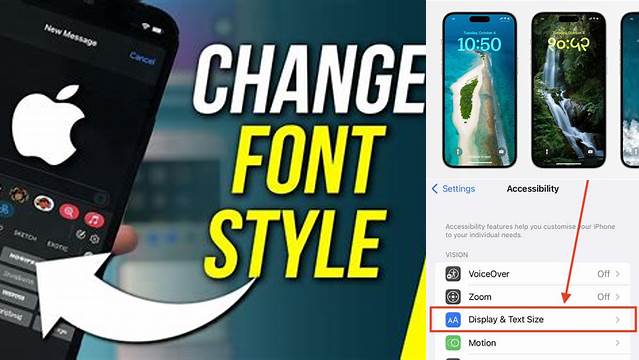
Best Fonts For IPhone 16: Enhance Your Display
Choosing the right font can significantly impact the user experience on your iPhone 16. A well-selected font enhances readability, aesthetics, and overall device appeal. Let's dive into the world of fonts and explore how you can optimize your iPhone 16's display.
1. Understanding Font Compatibility on iPhone 16
Making sure your favorite fonts play nice with the iPhone 16 is super important, guys. Apple's iOS has its own way of handling fonts, so you can't just slap any old font on there and expect it to work perfectly. Usually, iOS relies on fonts that are designed to work smoothly with its system, ensuring everything looks sharp and clear. But hey, there's some wiggle room! You can use apps from the App Store that let you install custom fonts. Just remember to check if these fonts are actually compatible to avoid any weird display issues or glitches. Nobody wants their phone looking like it's from another dimension, right? Keep an eye on updates too, because Apple often tweaks things under the hood that can affect how fonts behave. So, stay informed, and your iPhone 16 will be looking stylish in no time!
2. System Fonts vs. Custom Fonts
Alright, let's break down the difference between system fonts and custom fonts on your iPhone 16. System fonts are those that come pre-installed on your device. Apple designs them to be super readable and consistent throughout the operating system. Think of San Francisco – it's clean, modern, and you see it everywhere on iOS. Custom fonts, on the other hand, are fonts you download and install yourself using third-party apps. These let you personalize your phone's look, but they might not always be as optimized as system fonts. You might run into issues like weird spacing or reduced readability if a custom font isn't well-made. Plus, using too many custom fonts can sometimes slow down your device or drain the battery faster. So, while it's tempting to go wild with personalization, it's a good idea to strike a balance. Stick to system fonts for important stuff like emails and notes, and use custom fonts sparingly for a bit of flair in other areas.
3. Top System Fonts for iPhone 16
When it comes to system fonts on your iPhone 16, you've got some seriously awesome choices that are designed to make your screen pop. First up, there's San Francisco, which is basically the bread and butter of iOS. It's super versatile, readable, and looks great in all sizes. If you're into something a bit more classic, Helvetica Neue is another fantastic option. It's clean, elegant, and gives your text a sophisticated vibe. For those who prefer a modern twist, Avenir Next is a winner. Its geometric design is both stylish and easy on the eyes. And let's not forget about Gill Sans, which has a cool, slightly quirky look that's perfect for adding a bit of personality. The best part about these system fonts is that they're optimized to work perfectly with your iPhone 16, so you won't have to worry about any weird display issues or glitches. Plus, they're battery-friendly, so you can enjoy your phone without constantly reaching for a charger. Choosing the right system font can really elevate your iPhone experience, making everything from reading emails to browsing the web a total breeze.
4. Best Custom Fonts for iPhone 16
If you're looking to jazz up your iPhone 16 with some custom fonts, you've got tons of options to play with! One popular choice is Montserrat, a modern and geometric font that's super clean and stylish. Another great pick is Raleway, which has a sleek, sophisticated vibe that's perfect for headlines and titles. For something a bit more playful, try Pacifico – it's a fun, hand-drawn script that adds a touch of personality to your phone. And if you're into vintage looks, Bebas Neue is a fantastic option. It's a tall, condensed font that's perfect for making a bold statement. Just remember, guys, to download these fonts from trusted sources to avoid any security risks. Once you've got them, you can use apps like AnyFont or Font Diner to install them on your iPhone. Keep in mind that custom fonts might not always be as optimized as system fonts, so test them out in different apps to make sure everything looks good. With a little experimentation, you can find the perfect custom font to make your iPhone 16 truly unique.
6. Font Size and Readability
Making sure the font size on your iPhone 16 is just right is super important for readability. If the font is too small, you'll be squinting and straining your eyes, which nobody wants! On the other hand, if it's too big, you won't be able to see much text on the screen at once, which can be a pain when you're reading long articles or emails. Luckily, iOS makes it easy to adjust the font size to your liking. Just head to Settings > Display & Brightness > Text Size, and you'll find a slider that lets you make the text bigger or smaller. You can also enable Bold Text for extra emphasis. Another cool feature is Larger Accessibility Sizes, which lets you crank up the font size even more for maximum readability. When choosing a font size, think about the type of content you usually read on your iPhone. If you're mostly reading news articles, a slightly smaller font size might be okay. But if you're reading e-books or long documents, a larger font size will be much easier on your eyes. Experiment with different sizes until you find the sweet spot that works best for you.
7. Adjusting Font Weight on iPhone 16
Adjusting the font weight on your iPhone 16 can make a big difference in how readable your text is. Font weight refers to how thick or thin the letters appear. A heavier font weight makes the text bolder and more prominent, while a lighter font weight gives it a more delicate look. To adjust the font weight on your iPhone, you can enable the Bold Text option in Settings > Display & Brightness > Text Size. This will make all the text on your device appear bolder, which can be especially helpful if you have trouble reading smaller fonts. Keep in mind that enabling Bold Text might not work with all custom fonts, so you might need to experiment to see what looks best. Another way to adjust font weight is by using apps that allow you to customize the appearance of text within the app itself. For example, some e-reader apps let you choose from different font weights to optimize your reading experience. Playing around with font weight can really help you fine-tune the look of your iPhone and make it easier to read in different lighting conditions and situations.
8. Font Style and Its Impact
The font style you choose can have a huge impact on the overall look and feel of your iPhone 16. Different font styles evoke different emotions and create different impressions. For example, a serif font like Times New Roman might give your text a classic, traditional vibe, while a sans-serif font like Helvetica might make it look more modern and clean. Script fonts, like Brush Script, can add a touch of elegance and personality, while monospace fonts, like Courier New, can give it a technical, retro look. When choosing a font style, think about the type of content you're displaying and the message you want to convey. If you're writing a formal email, a classic serif font might be a good choice. But if you're designing a website or creating a presentation, a modern sans-serif font might be more appropriate. You can experiment with different font styles to see what looks best and what resonates with you. Just remember to choose fonts that are easy to read and that complement the overall design of your iPhone.
9. Font Pairing Tips for iPhone 16
Font pairing is the art of combining two or more fonts that complement each other to create a visually appealing and harmonious design. When done right, font pairing can elevate the look of your iPhone 16 and make your text more engaging. Here are a few tips for pairing fonts like a pro: Start by choosing a dominant font for headlines and titles. This should be a font that's bold, eye-catching, and reflects the overall tone of your content. Next, choose a secondary font for body text and other smaller elements. This should be a font that's easy to read and complements the dominant font without overshadowing it. A good rule of thumb is to pair a serif font with a sans-serif font. For example, you could pair a serif font like Times New Roman for headlines with a sans-serif font like Arial for body text. Another approach is to pair fonts that have contrasting personalities. For example, you could pair a bold, geometric font with a delicate, handwritten font. Just remember to keep it simple and avoid using too many different fonts. A good font pairing should enhance the readability and visual appeal of your iPhone, not distract from it.
10. Accessibility and Font Choices
When choosing fonts for your iPhone 16, it's super important to think about accessibility. Not everyone sees the same way, and some people might have trouble reading certain fonts. Picking fonts that are easy to read for everyone is a great way to make your content more inclusive. One thing to keep in mind is font size. Make sure the font isn't too small, so people don't have to strain their eyes. iOS has a feature called Larger Accessibility Sizes that lets you make the font even bigger, which can be a lifesaver for some folks. Also, think about font contrast. High contrast between the text and the background makes it much easier to read. Avoid using light-colored fonts on light backgrounds, or dark-colored fonts on dark backgrounds. The Bold Text option in iOS can also help improve readability for people with visual impairments. And finally, choose fonts that are clean and simple. Avoid fonts that are too fancy or decorative, as they can be hard to decipher. By keeping accessibility in mind, you can make your iPhone 16 a pleasure to use for everyone.
11. Font Licensing Considerations
Font licensing can be a bit of a headache, but it's something you need to think about when using custom fonts on your iPhone 16. Basically, font licenses are agreements that spell out how you can and can't use a particular font. Some fonts are free for personal use, but you might need to pay for a commercial license if you're using them for business purposes. Other fonts have more restrictive licenses that limit how you can modify or distribute them. Before you download and install a custom font, take a close look at its license to make sure you're not violating any terms. Websites like Google Fonts often offer fonts with open-source licenses, which give you a lot of freedom to use and modify the fonts. But even with open-source fonts, it's a good idea to read the license carefully to understand any restrictions. If you're not sure about a font's license, it's always best to err on the side of caution and contact the font's creator or distributor for clarification. Ignoring font licenses can lead to legal trouble, so it's better to be safe than sorry!
12. Impact of Fonts on Battery Life
You might not think about it, but the fonts you use on your iPhone 16 can actually affect your battery life. Some fonts are more resource-intensive than others, which means they require more processing power to render on the screen. This can lead to increased battery drain, especially if you're using custom fonts that aren't optimized for iOS. In general, simpler fonts with clean lines and minimal details tend to be more energy-efficient than complex fonts with lots of curves and embellishments. System fonts, like San Francisco, are usually well-optimized for battery life, as Apple has designed them to work efficiently with iOS. If you're concerned about battery drain, it's a good idea to stick to system fonts or choose custom fonts that are known to be lightweight. You can also try reducing the font size and weight, as this can help reduce the amount of processing power required to render the text. And of course, closing apps you're not using and dimming your screen can also help extend your battery life.
13. Font Management Apps for iPhone 16
Font management apps are super handy for installing and organizing custom fonts on your iPhone 16. These apps let you browse, download, and install fonts from various sources, and they make it easy to switch between different fonts in your apps. Some popular font management apps for iOS include AnyFont, iFont, and Font Diner. These apps typically work by installing a configuration profile on your iPhone, which allows you to use custom fonts in apps that support them. Keep in mind that not all apps support custom fonts, so you might not be able to use them everywhere. When choosing a font management app, look for one that's easy to use, has a wide selection of fonts, and offers good support. It's also a good idea to read reviews and check the app's ratings to make sure it's reliable and safe to use. And of course, make sure the app is compatible with your version of iOS. With a good font management app, you can easily customize the look of your iPhone and make it truly your own.
14. Previewing Fonts Before Installation
Before you go ahead and install a bunch of custom fonts on your iPhone 16, it's a smart idea to preview them first. This lets you see what the fonts actually look like and how they'll appear on your screen. Many font management apps offer a preview feature that allows you to type in some text and see it rendered in different fonts. This can help you get a sense of whether a font is easy to read, whether it fits your style, and whether it complements the overall design of your iPhone. You can also use websites like Google Fonts to preview fonts before downloading them. Just type in some text, adjust the font size and weight, and see how it looks. Previewing fonts can save you a lot of time and hassle, as it helps you avoid installing fonts that you don't actually like or that don't work well on your device. So, take a few minutes to preview your fonts before installing them, and you'll be much happier with the results.
15. Resetting to Default Fonts on iPhone 16
If you've messed around with custom fonts on your iPhone 16 and want to go back to the default fonts, it's pretty easy to do. The process might vary slightly depending on which font management app you're using, but here are the general steps: First, open the font management app and look for an option to remove or uninstall the custom fonts. This might involve deleting the configuration profile that you installed when you added the fonts. Once you've removed the custom fonts, your iPhone should automatically revert to the default system fonts. If it doesn't, you can try restarting your device. If you're still having trouble, you can reset your iPhone's settings to their factory defaults. This will erase all of your custom settings, including your font preferences, and restore your iPhone to its original state. To do this, go to Settings > General > Reset > Erase All Content and Settings. Keep in mind that this will also erase all of your data, so make sure you have a backup before proceeding. Resetting to the default fonts can be a good way to troubleshoot font-related issues or simply start fresh with a clean slate.
16. Font Recommendations for Different Apps
Choosing the right font for different apps on your iPhone 16 can make a big difference in your overall experience. For reading apps, like Kindle or Apple Books, you'll want to choose a font that's easy on the eyes and doesn't cause fatigue. Serif fonts, like Georgia or Times New Roman, are often a good choice for long-form reading. For note-taking apps, like Notes or Evernote, you might prefer a sans-serif font, like Helvetica or Arial, which can make your notes look clean and organized. For email apps, like Mail or Gmail, you'll want to choose a font that's professional and easy to read. System fonts, like San Francisco, are usually a safe bet. For social media apps, like Instagram or Twitter, you can get away with using more creative and expressive fonts. Just make sure the font is still legible and doesn't distract from the content. Ultimately, the best font for each app depends on your personal preferences and the type of content you're viewing. Experiment with different fonts and see what works best for you.
17. Troubleshooting Font Issues on iPhone 16
Sometimes, things can go wrong with fonts on your iPhone 16. You might encounter issues like fonts not displaying correctly, fonts appearing blurry or pixelated, or apps crashing when you try to use custom fonts. If you run into any of these problems, here are a few troubleshooting tips: First, make sure the font is compatible with your version of iOS and the app you're using. Some fonts might not work well with certain apps or older versions of iOS. Try updating your apps and iOS to the latest versions to see if that fixes the problem. If you're using custom fonts, try removing them and see if that resolves the issue. Sometimes, a faulty font file can cause problems. You can also try restarting your iPhone. This can often fix minor software glitches. If none of these steps work, you can try resetting your iPhone's settings to their factory defaults. Just remember to back up your data first. If you're still having trouble, you can contact Apple Support for assistance.
18. Future of Fonts on iOS
The future of fonts on iOS looks pretty exciting, guys! Apple is always working on improving the user experience, and that includes making fonts more customizable and accessible. We might see more advanced font management features built directly into iOS, without the need for third-party apps. Imagine being able to easily preview, install, and organize fonts right from the Settings app. We could also see more sophisticated font rendering technologies that make text look even sharper and clearer on our iPhone screens. And with the rise of augmented reality (AR) and virtual reality (VR), we might see new types of fonts designed specifically for these immersive experiences. Imagine fonts that can adapt to different lighting conditions or even change their appearance based on your emotions. The possibilities are endless! As technology evolves, fonts will continue to play a crucial role in shaping how we interact with our devices and the world around us.
19. Font Design Trends
Font design trends are constantly evolving, reflecting changes in culture, technology, and aesthetics. Right now, we're seeing a lot of interest in geometric sans-serif fonts, which have a clean, modern look. These fonts are often used in branding and web design to convey a sense of simplicity and sophistication. We're also seeing a resurgence of vintage and retro fonts, which evoke a sense of nostalgia and craftsmanship. These fonts are often used in logos and packaging to create a unique and memorable impression. Another trend is the use of variable fonts, which allow designers to adjust various aspects of a font, like weight, width, and slant, to create a customized look. Variable fonts are becoming increasingly popular because they offer a lot of flexibility and control. And of course, accessibility is a major trend in font design. Designers are increasingly focused on creating fonts that are easy to read for people with visual impairments. As font technology advances, we can expect to see even more innovative and expressive font designs in the future.
20. Creating Your Own Fonts
Creating your own fonts might seem like a daunting task, but it's actually easier than you think, thanks to the availability of user-friendly font design software. Whether you're a professional designer or just a hobbyist, you can create custom fonts that reflect your unique style and personality. Some popular font design tools include FontLab Studio, Glyphs, and FontForge. These tools allow you to draw letters, adjust their spacing and kerning, and generate font files that can be used on your iPhone and other devices. Creating a font from scratch takes time and effort, but it can be a rewarding experience. You can start by sketching out your ideas on paper and then translate them into digital form using the font design software. Experiment with different styles, weights, and sizes to see what looks best. And don't be afraid to get creative and try something new. Who knows, you might just create the next big font trend!
21. Legal Aspects of Using Fonts
When it comes to using fonts, there are some important legal aspects to keep in mind. Fonts are protected by copyright law, which means you can't just copy and distribute them without permission from the font's creator or owner. Most fonts come with a license that specifies how you can use the font. Some licenses allow you to use the font for personal and commercial purposes, while others restrict its use to certain types of projects or require you to pay a fee. Before you use a font, it's important to read the license carefully to make sure you're not violating any terms. If you're not sure about the license, it's always best to err on the side of caution and contact the font's creator or owner for clarification. Using fonts without the proper license can lead to legal trouble, so it's better to be safe than sorry.
22. Font Sizes for Different Screen Sizes
Choosing the right font size for different screen sizes is crucial for ensuring readability and a comfortable user experience. On smaller screens, like those of iPhones, it's important to use a font size that's large enough to be easily read without straining the eyes. On larger screens, like those of iPads or desktop computers, you can get away with using smaller font sizes, as the text will still be legible. As a general rule, aim for a font size that's proportional to the screen size. For example, a font size of 16 pixels might be appropriate for an iPhone, while a font size of 12 pixels might be sufficient for a desktop computer. It's also important to consider the font's x-height, which is the height of the lowercase letters. Fonts with a larger x-height tend to be more readable at smaller sizes. Experiment with different font sizes and see what looks best on your device.
23. Font Weight and Its Psychological Impact
The font weight you choose can have a subtle but significant psychological impact on your audience. Lighter font weights tend to convey a sense of elegance, sophistication, and delicacy. They're often used in luxury brands and high-end publications. Heavier font weights, on the other hand, tend to convey a sense of strength, authority, and boldness. They're often used in headlines and titles to grab the reader's attention. The font weight you choose should be appropriate for the message you're trying to convey. If you're trying to create a sense of trust and reliability, a medium font weight might be a good choice. If you're trying to create a sense of excitement and urgency, a heavier font weight might be more effective. Consider the psychological impact of font weight when designing your iPhone's interface.
24. Contrast and Legibility
Contrast plays a vital role in legibility. Without sufficient contrast between the text and the background, reading becomes a strain, leading to eye fatigue. For optimal legibility, aim for a high contrast ratio. Black text on a white background is the gold standard, offering maximum contrast. However, other color combinations can work well, provided they meet the minimum contrast requirements. Avoid using colors that are too similar, such as light gray text on a white background, as this makes the text difficult to read. Also, be mindful of colorblindness, as some color combinations may be problematic for individuals with color vision deficiencies. Use color contrast checkers to ensure your color choices are accessible to everyone. Remember, legibility is paramount, so prioritize contrast in your font choices.
25. Spacing and Kerning Adjustments
Spacing and kerning adjustments are essential for achieving optimal readability and visual appeal. Spacing refers to the overall space between letters, words, and lines of text, while kerning refers to the adjustment of space between individual letter pairs. Proper spacing ensures that letters don't feel cramped or too far apart, while proper kerning ensures that letter pairs like "AV" or "WA" are visually balanced. Poor spacing and kerning can make text look awkward and difficult to read. Most font design software includes tools for adjusting spacing and kerning. Experiment with different settings to see what looks best. Pay attention to the overall rhythm and flow of the text. Aim for a spacing and kerning that feels natural and comfortable to read.
26. Unicode Support and Font Compatibility
Unicode support is crucial for ensuring that your fonts can display a wide range of characters from different languages. Unicode is a universal character encoding standard that assigns a unique code point to every character in every language. Without Unicode support, your fonts might not be able to display characters from languages like Chinese, Japanese, or Korean. When choosing fonts, make sure they have good Unicode support. This will ensure that your text will be displayed correctly, regardless of the language. Also, be mindful of font compatibility. Not all fonts are compatible with all operating systems and devices. Test your fonts on different platforms to make sure they work as expected. If you're using custom fonts, make sure they're properly installed and configured on your iPhone.
27. Font Selection for E-Readers
Font selection is particularly important for e-readers, as you'll be spending a lot of time staring at the screen. Choose fonts that are easy on the eyes and don't cause fatigue. Serif fonts, like Georgia or Times New Roman, are often a good choice for long-form reading. They have serifs, which are small strokes at the ends of the letters, that help guide the eye and improve readability. Sans-serif fonts, like Helvetica or Arial, can also work well, but they might be more tiring to read for extended periods. Experiment with different font sizes and line heights to see what feels most comfortable. Also, consider the screen's lighting conditions. If you're reading in bright sunlight, you might want to choose a bolder font with higher contrast. If you're reading in a dimly lit room, you might want to choose a lighter font with lower contrast.
28. Monospace Fonts and Coding
Monospace fonts are a popular choice for coding because they make it easier to align code and spot errors. In a monospace font, every character has the same width, which means that characters line up vertically, regardless of their shape. This makes it easier to see indentation levels, identify syntax errors, and compare different lines of code. Some popular monospace fonts for coding include Courier New, Consolas, and Monaco. When choosing a monospace font for coding, look for one that's easy to read and has good distinction between similar characters, like "0" and "O" or "1" and "l". Also, consider the font's size and line height. You'll want to choose a font size that's large enough to be easily read without straining your eyes, and a line height that provides enough space between lines of code.
29. Typography and Branding
Typography plays a crucial role in branding. The fonts you choose can communicate your brand's personality, values, and message. A well-chosen font can help you create a memorable and recognizable brand identity. When choosing fonts for your brand, consider your target audience, your brand's values, and the overall message you want to convey. If you're targeting a young, hip audience, you might want to choose a modern, playful font. If you're targeting a more mature, sophisticated audience, you might want to choose a classic, elegant font. Also, consider the font's legibility. Your brand's fonts should be easy to read, regardless of the size or context. Test your fonts on different media, such as websites, print materials, and social media, to make sure they look good in all situations.
30. Font Customization in iOS Settings
iOS offers a range of font customization options within its settings, allowing you to tailor the text appearance to your preferences. You can adjust the text size to make it easier to read, enable bold text for added emphasis, and even choose from a variety of system fonts. To access these settings, go to Settings > Display & Brightness > Text Size. Here, you can use the slider to adjust the text size to your liking. You can also enable the Bold Text option, which will make all the text on your iPhone appear bolder. For even more customization options, go to Settings > Accessibility > Display & Text Size. Here, you can enable Larger Accessibility Sizes, which will allow you to increase the text size even further. You can also adjust the contrast, reduce transparency, and invert colors to make the text easier to read. Experiment with these settings to find what works best for you.